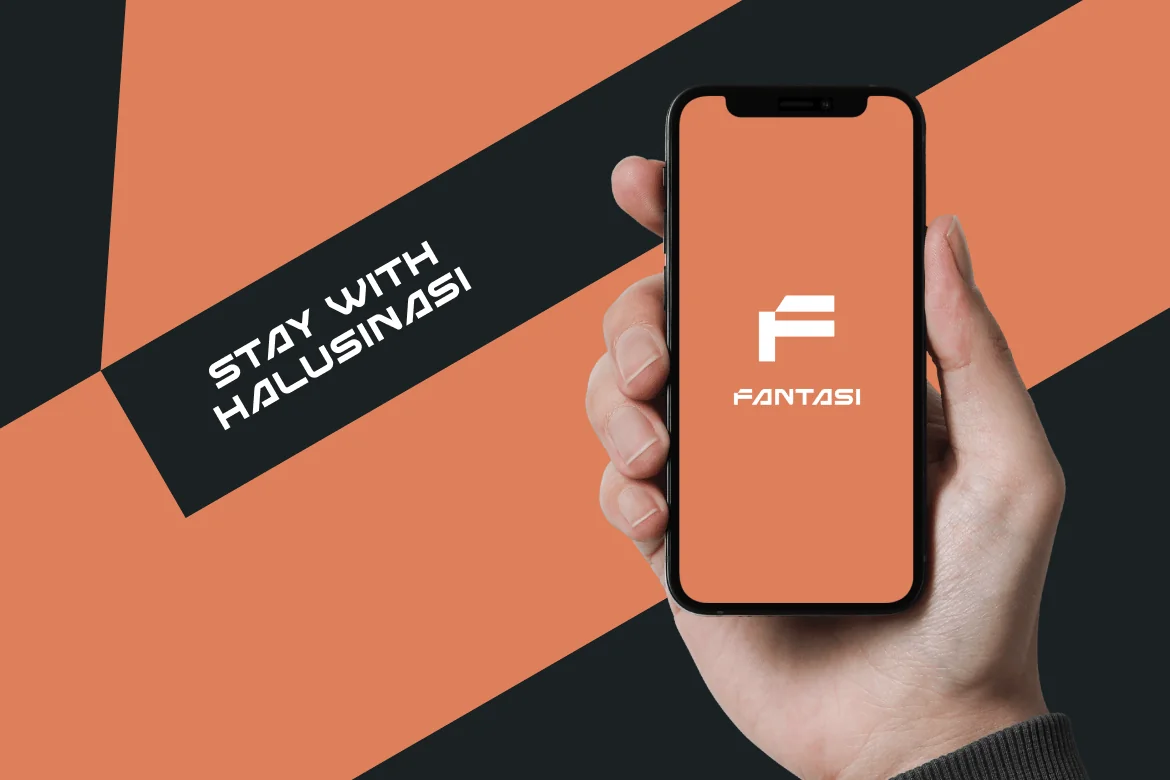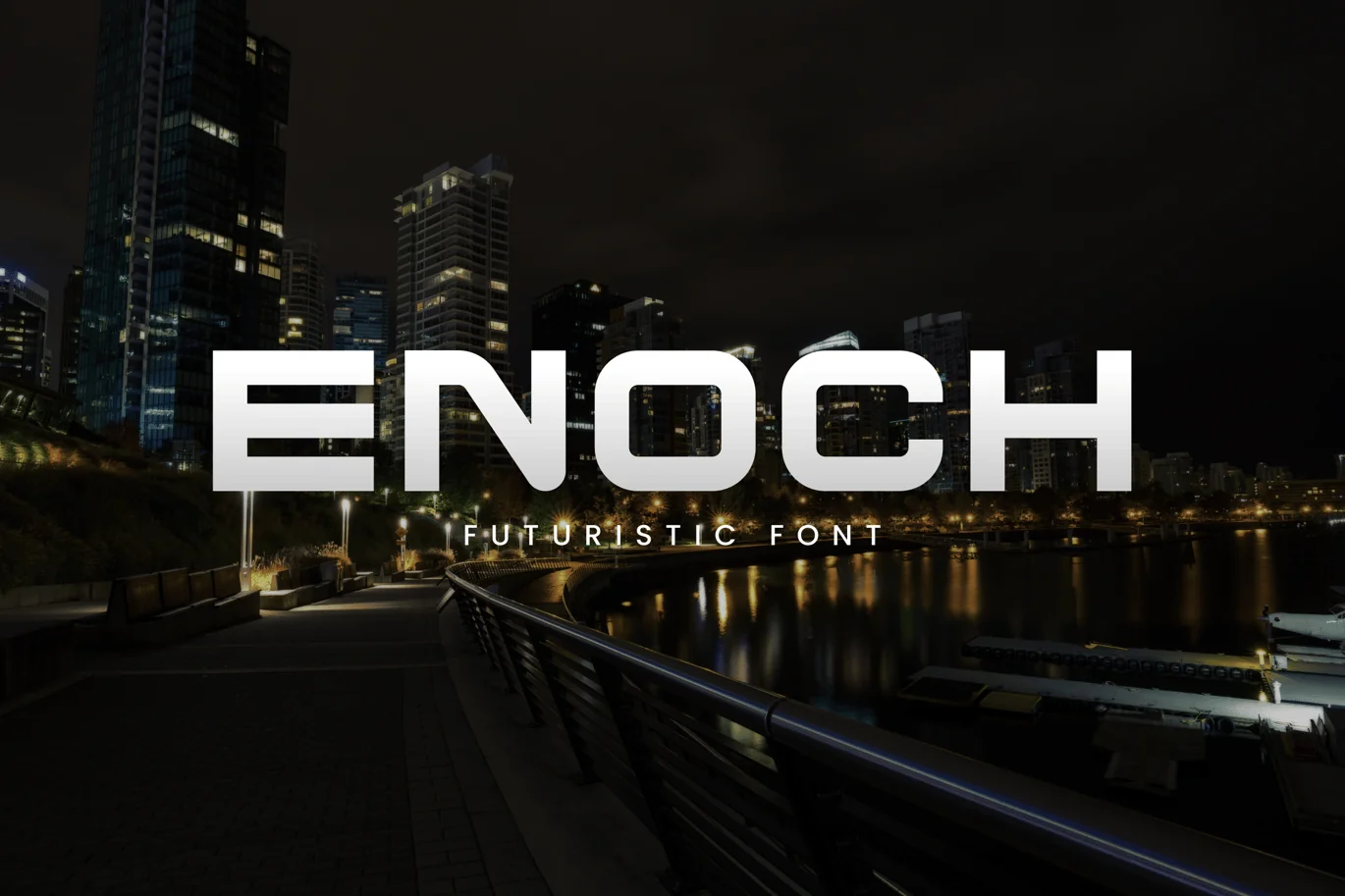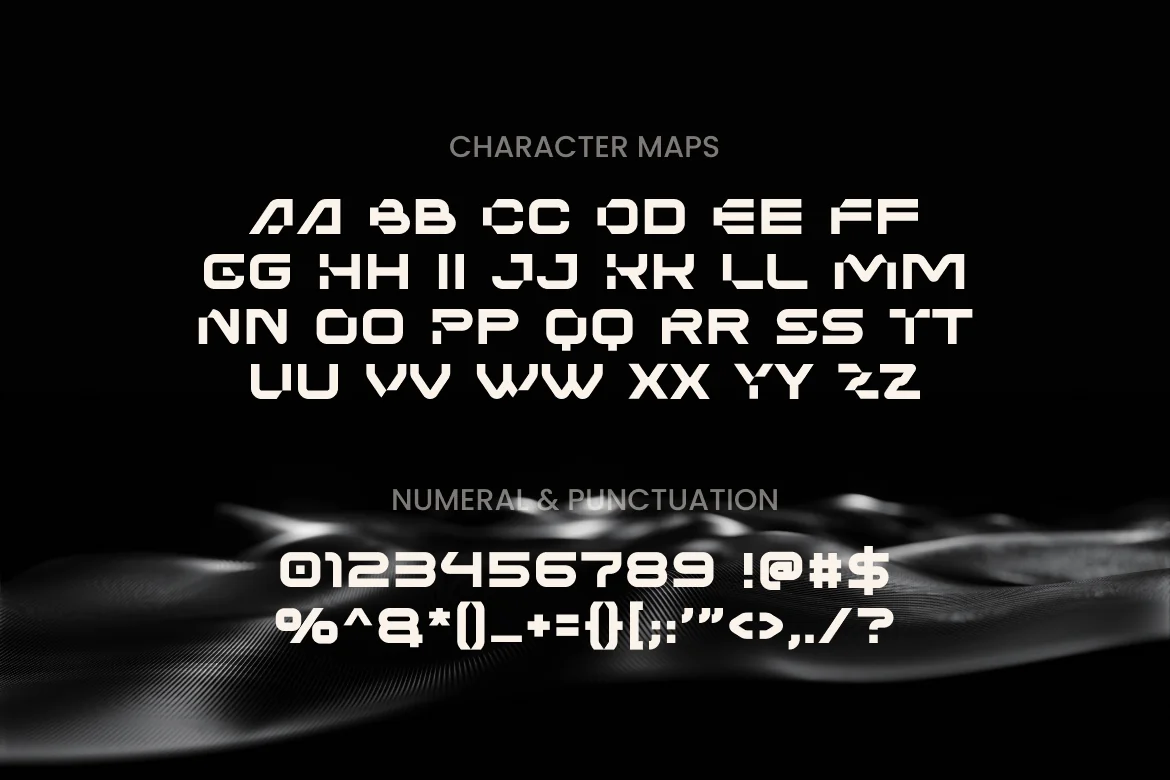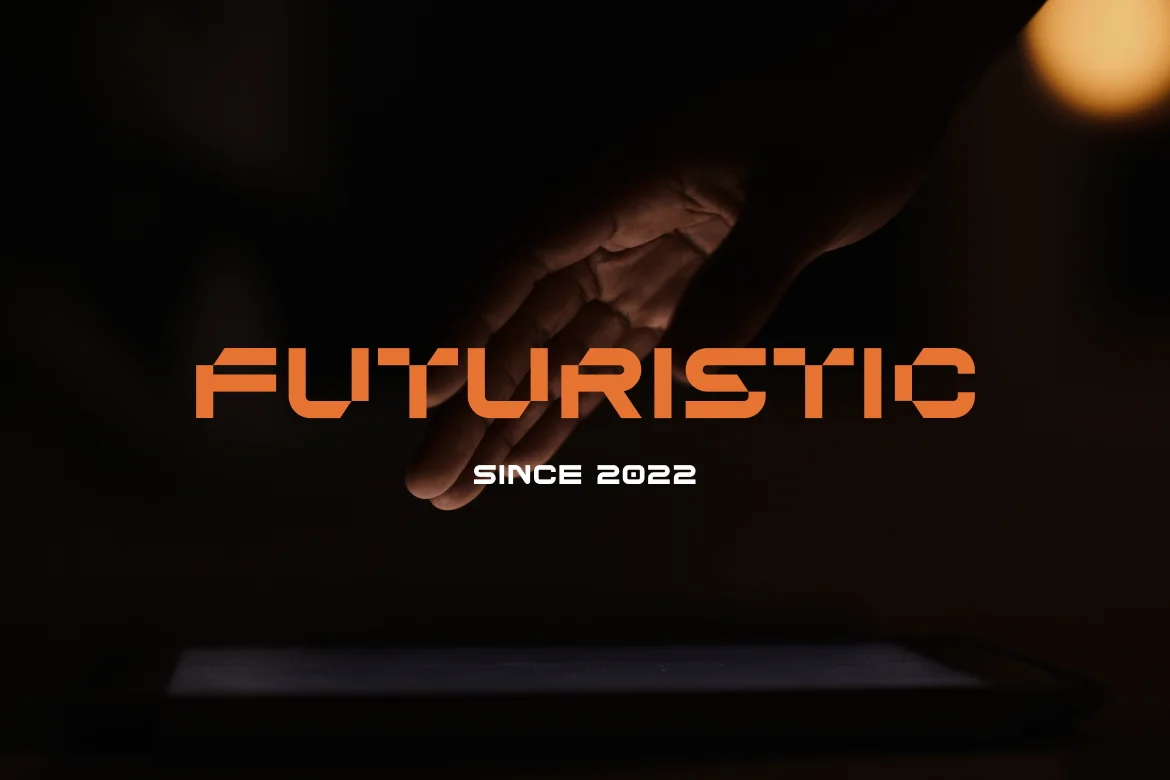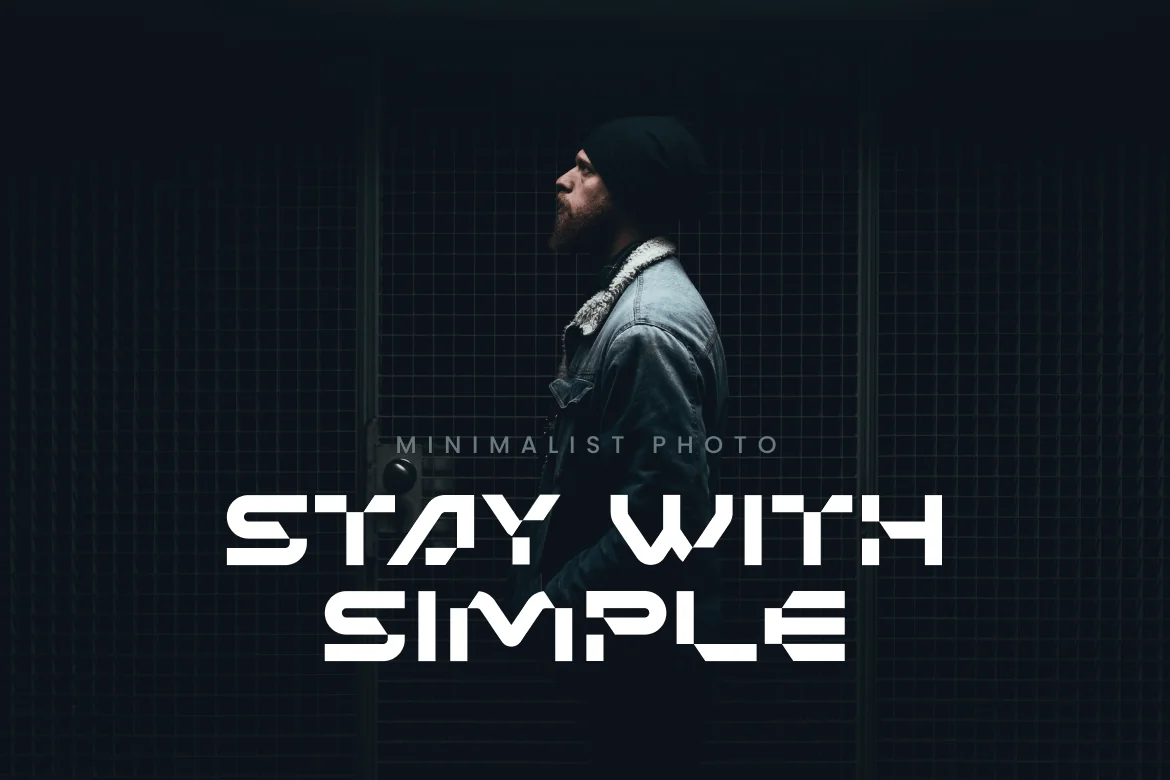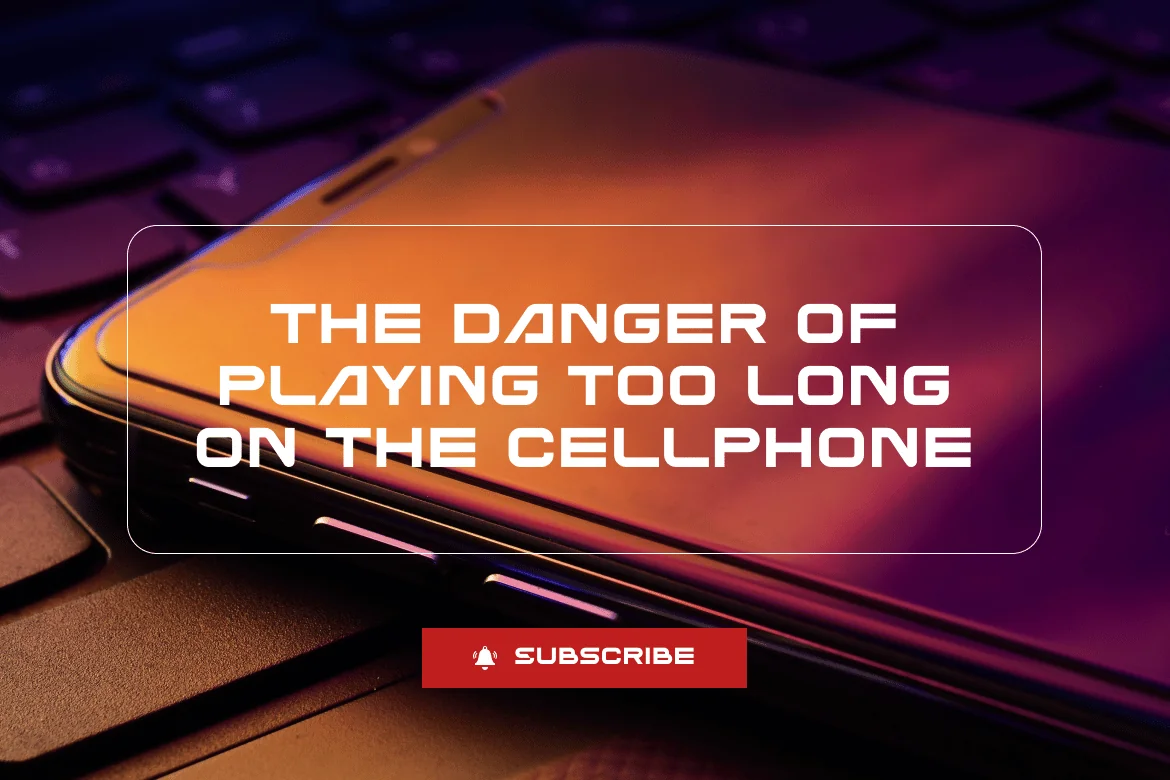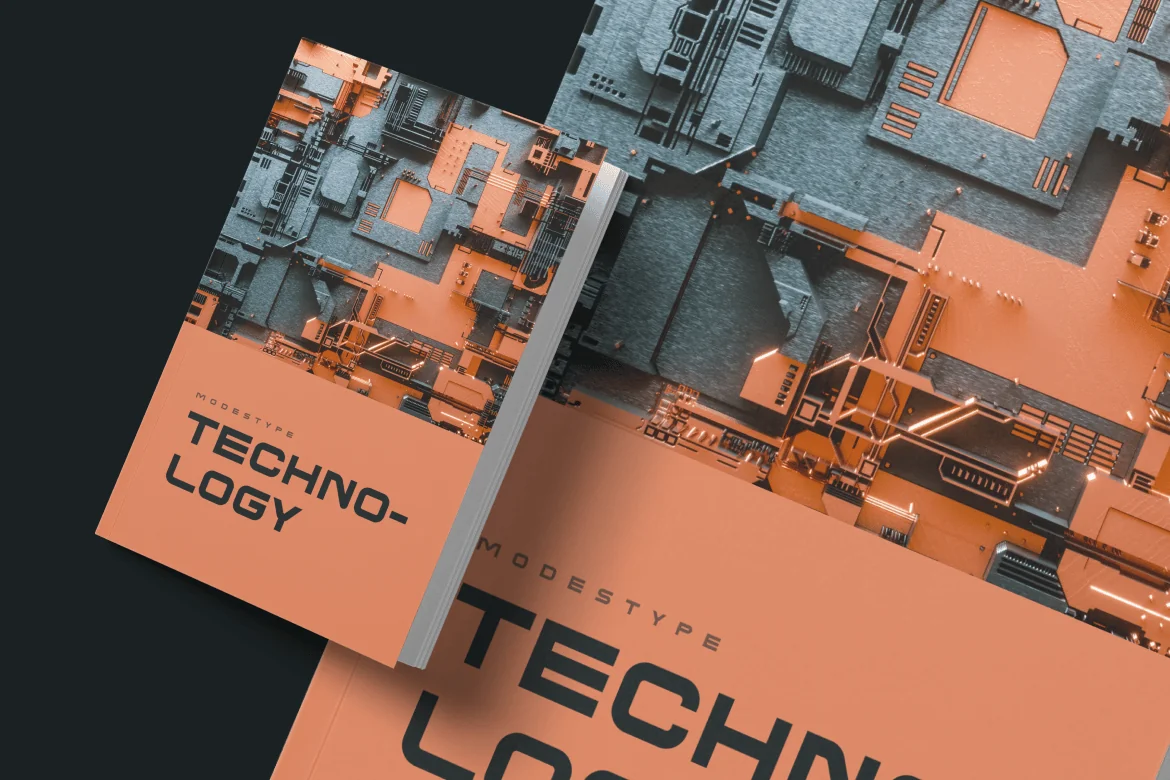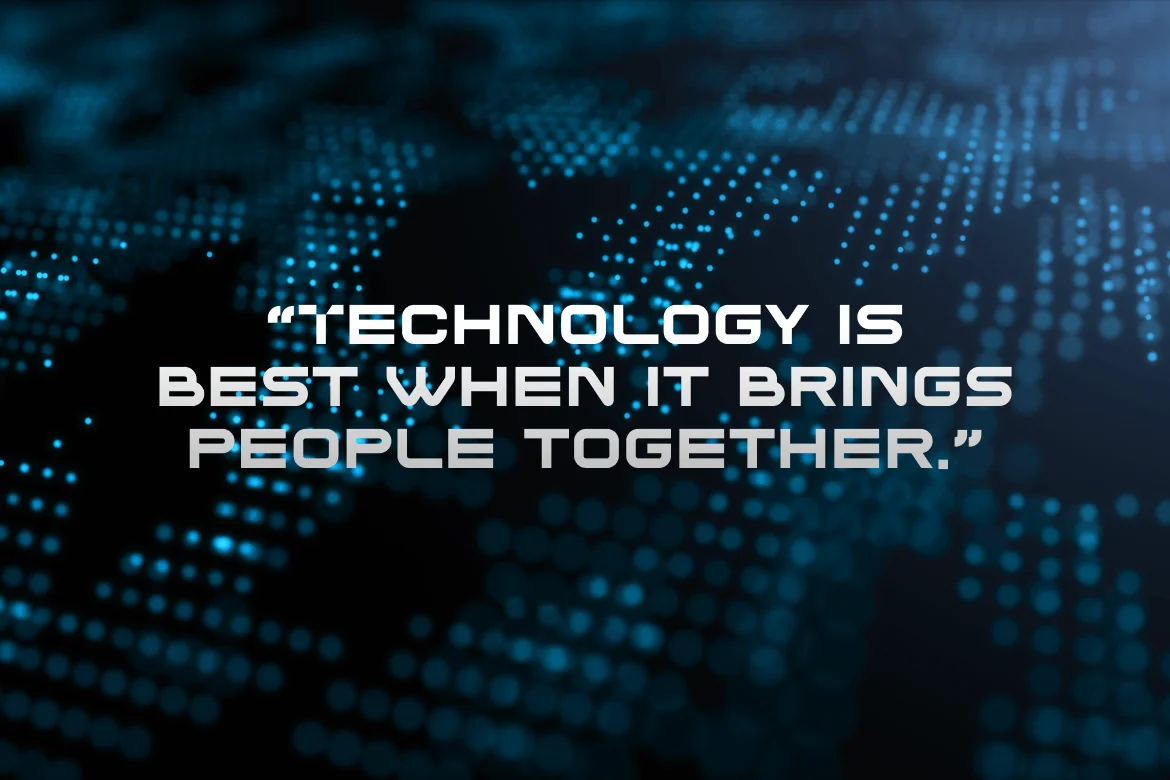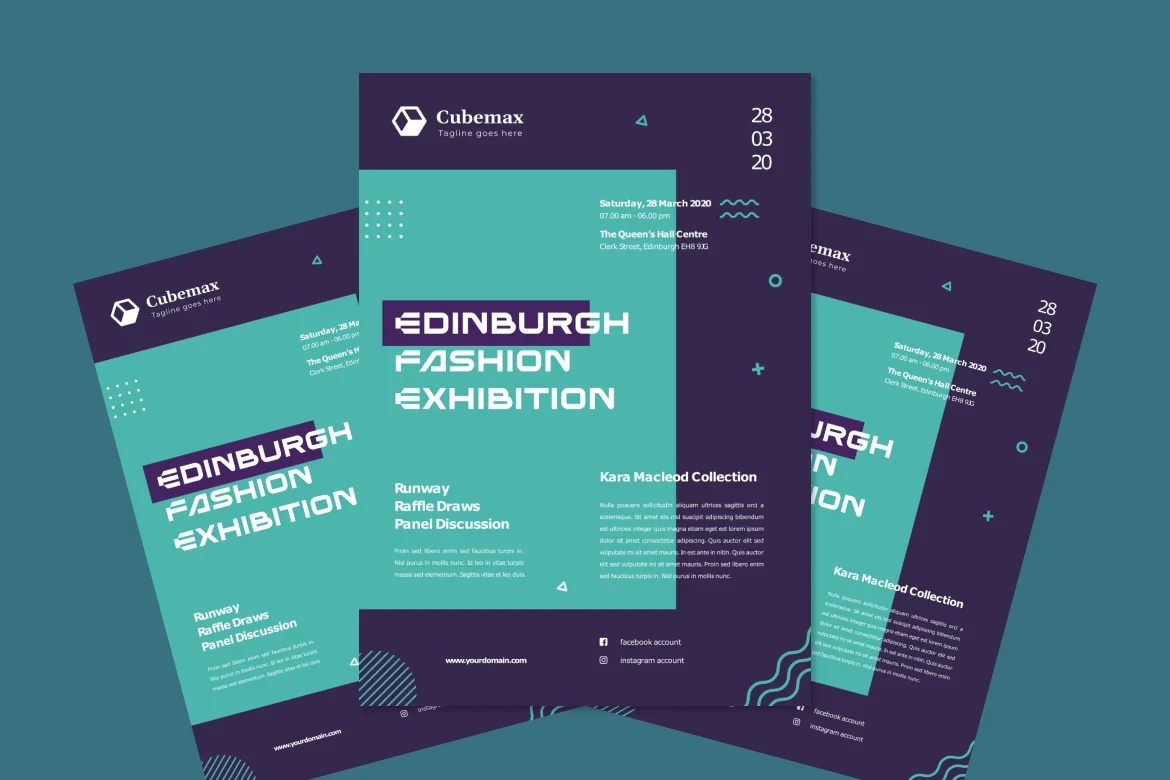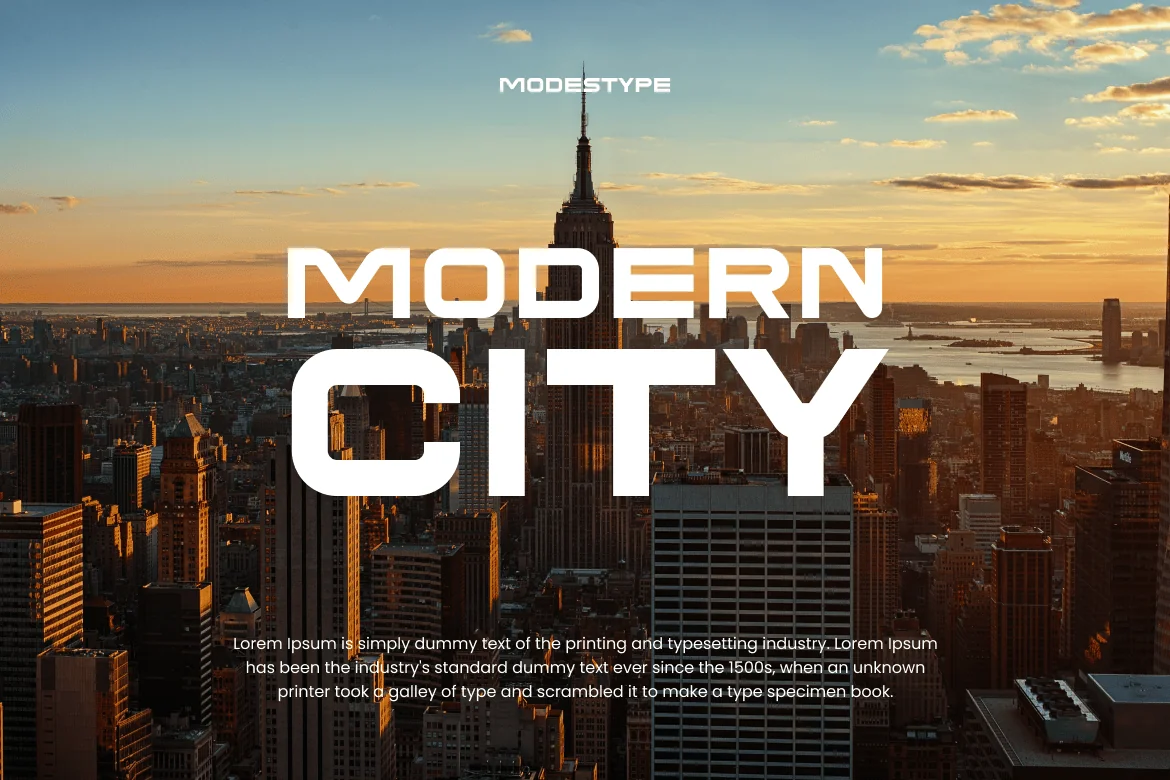
ENOCH – Futuristic Font
Future is here. and ENOCH is the perfect font for it. The cutout style for the uppercase, emphasize the digitalized we living in, while the lowercase stand in much regular basis style with top notch readability. The slight wide shape of each letter bring more confident and punchline in every words written.
Suit perfectly for future and science segmented magazine, poster, movie title, music poster, youtube covers, youtube thumbnails, social media page covers and so on…